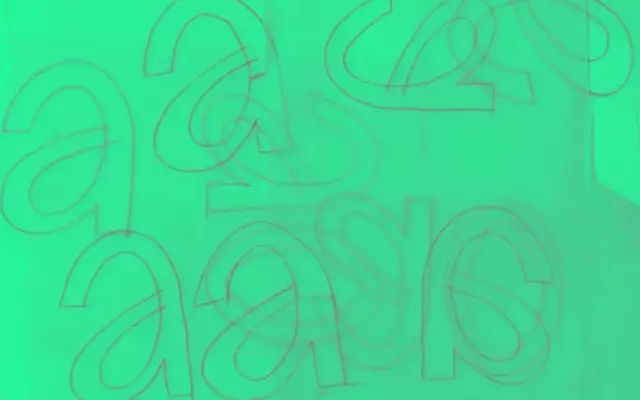
A neo-grotesque sans with oval curves and softer proportions that give it a springy, animated quality while staying close to the neutral grotesque model.
Built on neo-grotesque proportions, Walney departs from strict circular geometry in favour of oval curves and more vertically stretched, rounded letterforms, particularly in the o and n. Moderate stroke contrast adds energy, and details such as the rounded leg of the R and the shaped upper bowl of the B introduce quiet character without compromising legibility. Its tight default spacing makes it assertive at medium sizes, and a variable font covers a Light-to-Black weight axis alongside a backslanted-to-slanted axis.
Walney is explicitly described as sitting close to the neo-grotesque model, with oval rather than circular curves and softened details that give it a warmer, more animated rhythm than a strict neutral grotesque.